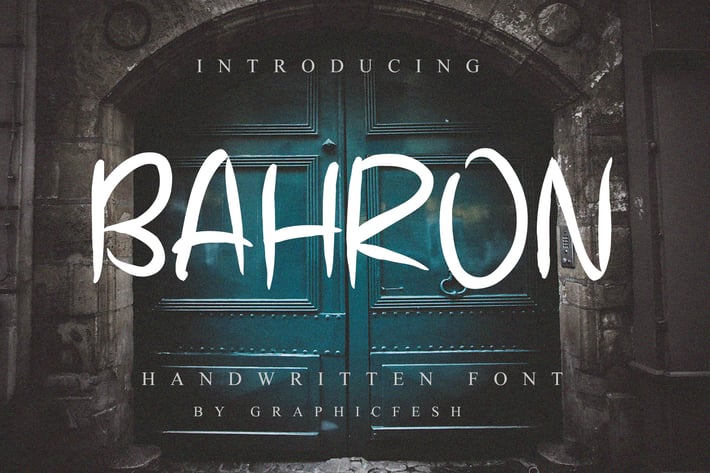
Bahron - Handwritten Font
A Handwritting script and unique character! itβs perfect for logos, name card, magazine layouts, invitations, headers, or even large-scale artwork.